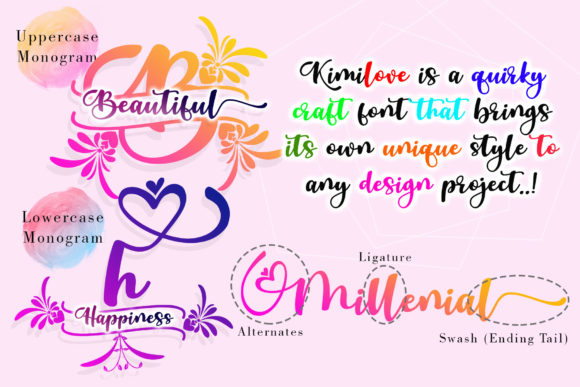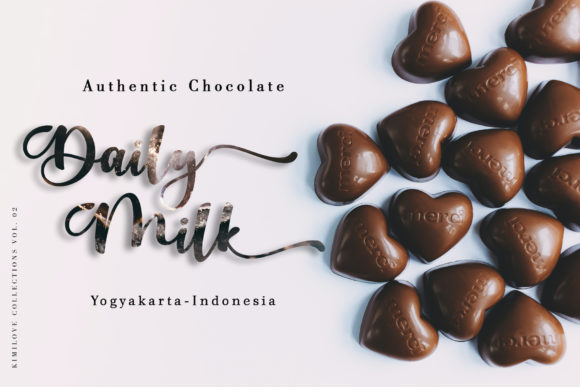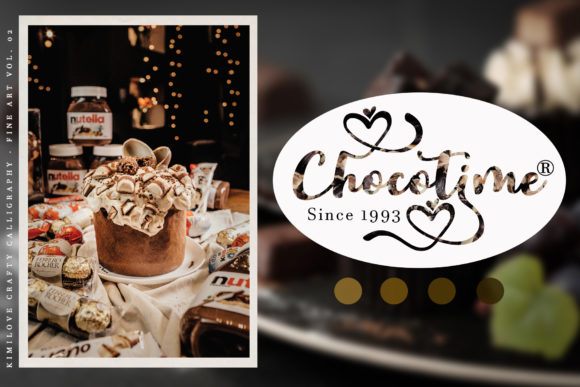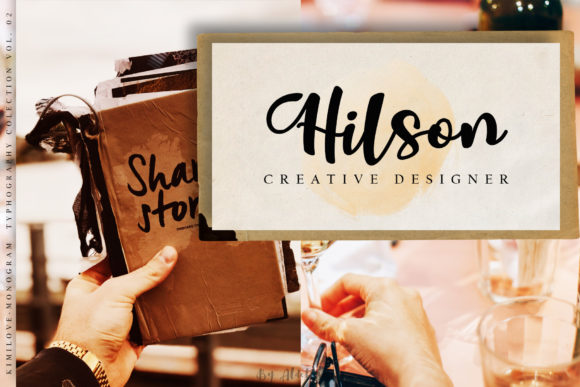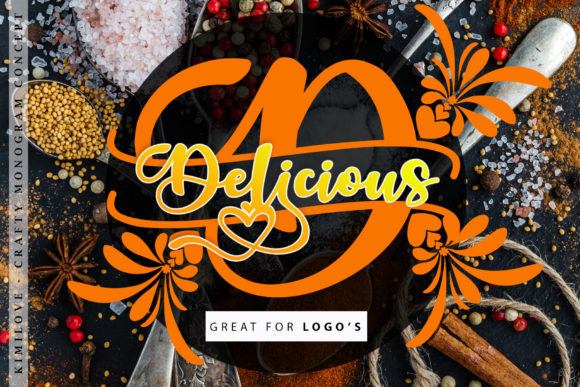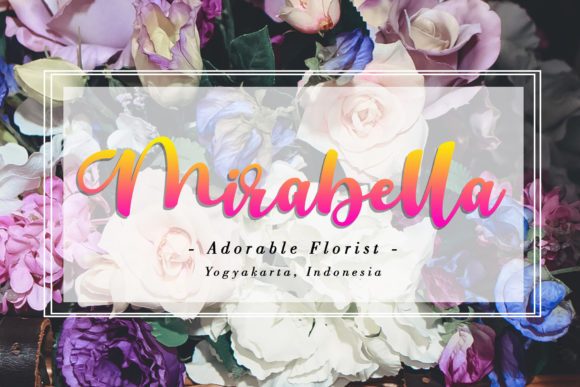
Introduction to Kimilove Font
As a designer, there’s nothing quite like the thrill of discovering a new font that sparks creativity and sets your imagination ablaze. For many of us, that moment comes when we stumble upon a font that perfectly captures the essence of our next big project. For me, that font was Kimilove Font – a charming, elegant, and incredibly versatile typeface that has become an essential design resource.
With its PUA-encoded features and stunning alternates, Kimilove Font is the perfect companion for any creative project that demands a touch of sophistication and whimsy. Whether you’re designing a beautiful wedding invitation, crafting social media posts, or working on a high-quality design project, Kimilove Font is sure to bring your vision to life with its smooth lines, gorgeous glyphs, and transparent background options.
Key Features of Kimilove Font
- High-quality design resource ideal for creative projects, offering a unique and stylish touch.
- Unique characteristics include its modern and elegant aesthetic, making it a standout choice for creative projects.
- Perfect for designers seeking a free design resource that exudes style and sophistication, suitable for a wide range of creative projects.
Honest Review: Kimilove Font
As a designer, I’m always on the lookout for high-quality design resources that can elevate my creative projects. The Kimilove Font caught my attention with its unique and elegant design. Let’s dive into my honest review!
- The font has a transparent background, making it perfect for use on light-colored backgrounds.
- The high quality of the font makes it perfect for use in various design projects, from logos to brochures.
- The font is highly customizable, allowing designers to experiment with different styles and effects.
- The font may not be suitable for use in small text sizes, as the letters may become difficult to read.
- The font is not available in as many languages as some other popular fonts.
Overall, I’m impressed with the Kimilove Font. It’s a great addition to any designer’s toolkit, and its high quality and customizability make it a valuable design resource. While it may have some limitations, I believe it’s a great choice for designers working on creative projects.
The Kimilove Font is ideal for creative projects, such as logo designs, social media graphics, and marketing materials. Its transparent background makes it perfect for overlaying on images or videos.